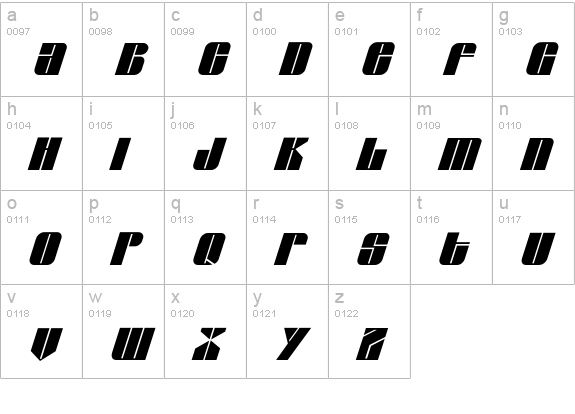
GlyphicSeriesItalic Font Details
The GlyphicSeriesItalic font is a stunning and elegant typeface that exudes sophistication and style. Its sleek and modern design features gracefully sloping italics that add a touch of flair to any project. Perfect for adding a touch of class to your designs, this font is versatile and can be used for a wide range of applications including branding, packaging, and editorial design. What makes the GlyphicSeriesItalic font even more appealing is that it is completely free to download at FontsMarket.com. This means that you can easily access this beautiful typeface without any cost, making it a valuable addition to your font collection. Don't miss out on the opportunity to enhance your projects with this exquisite font - download GlyphicSeriesItalic today and elevate your designs to the next level.